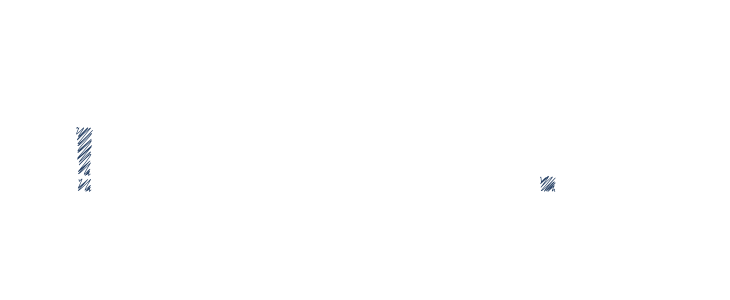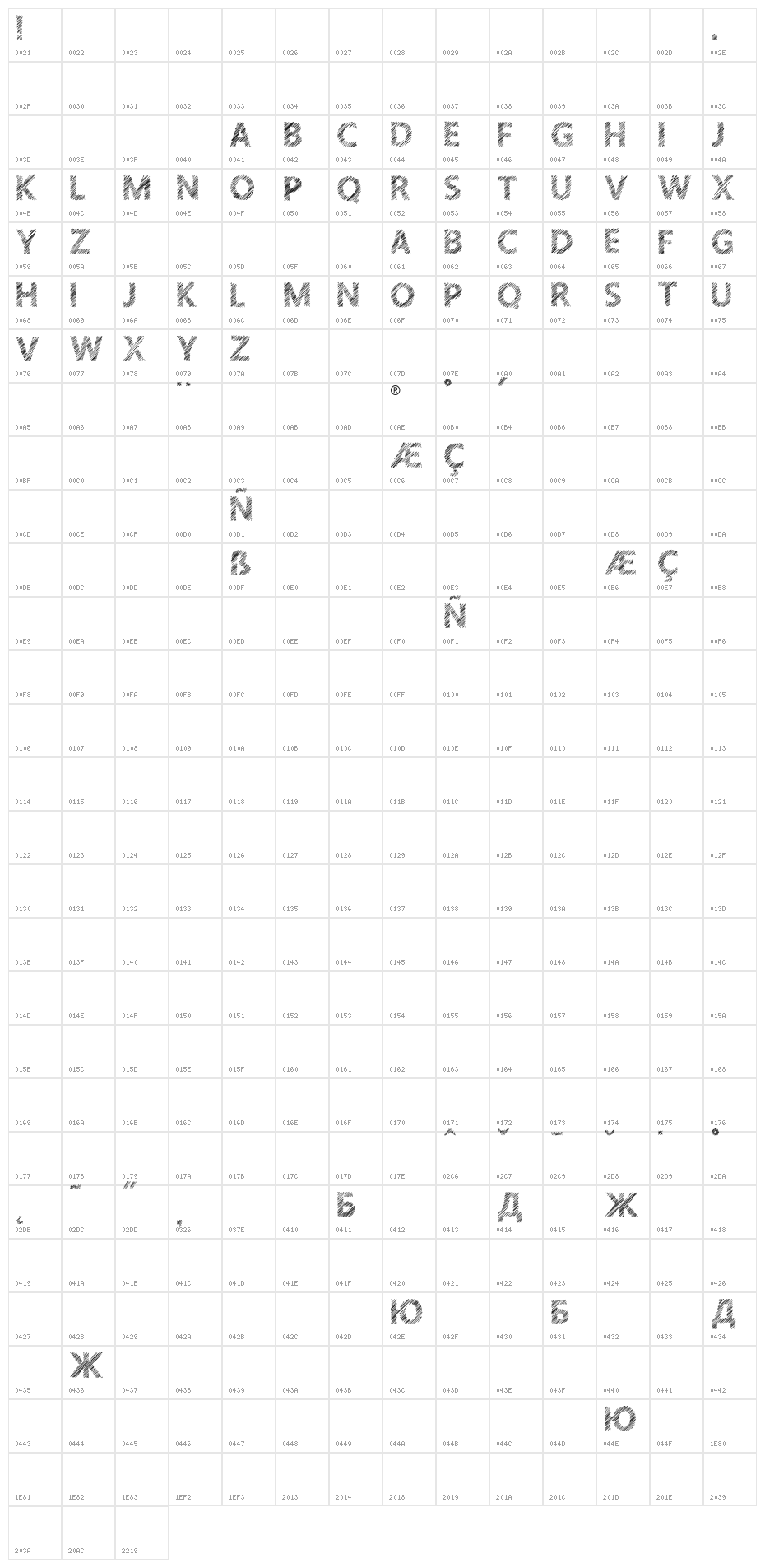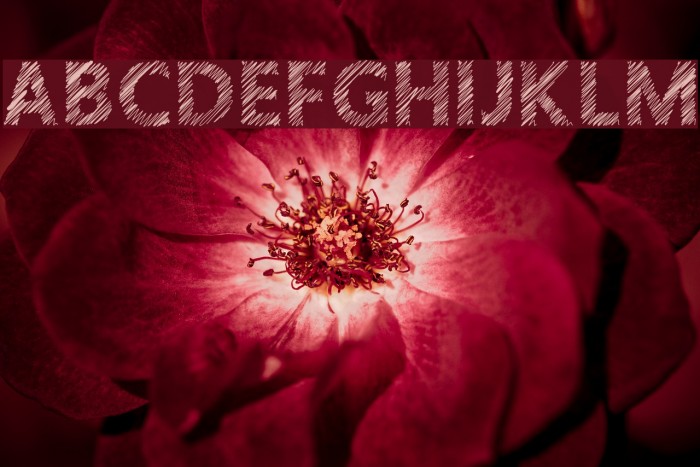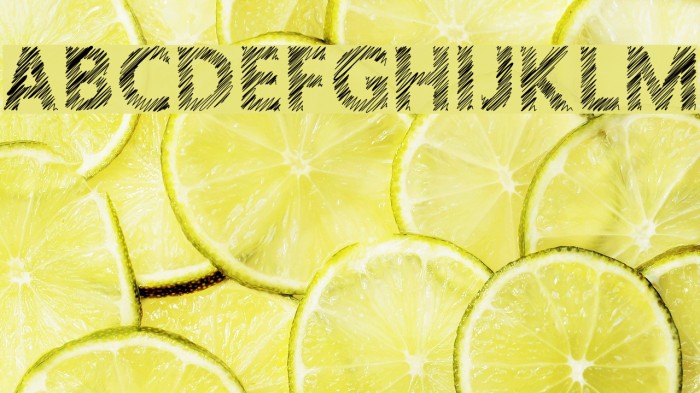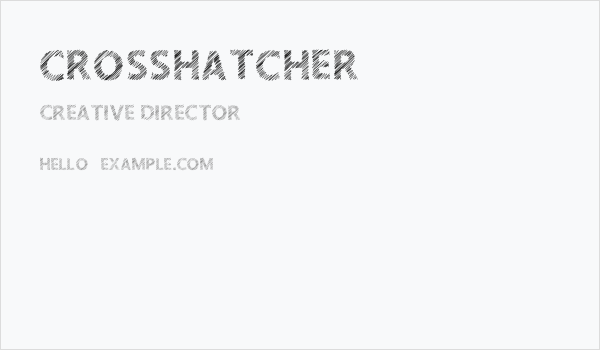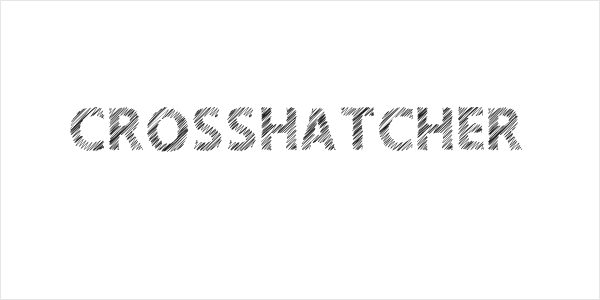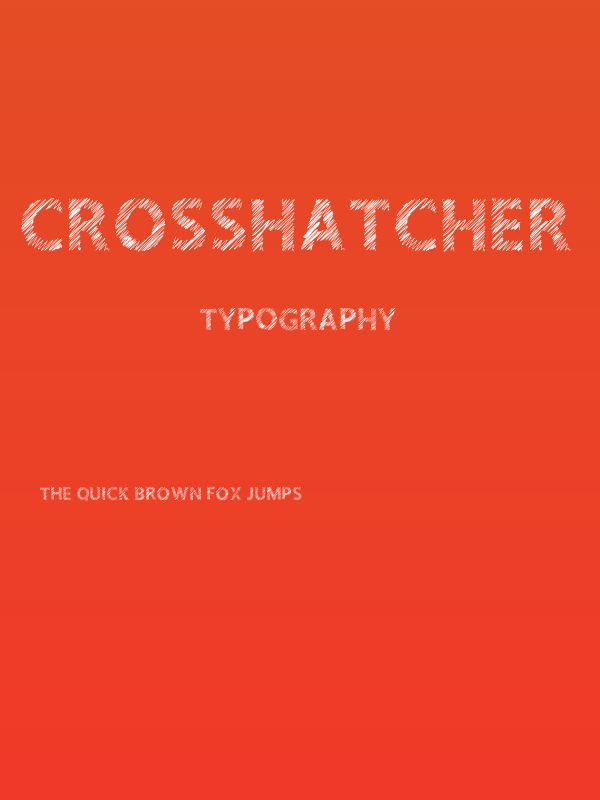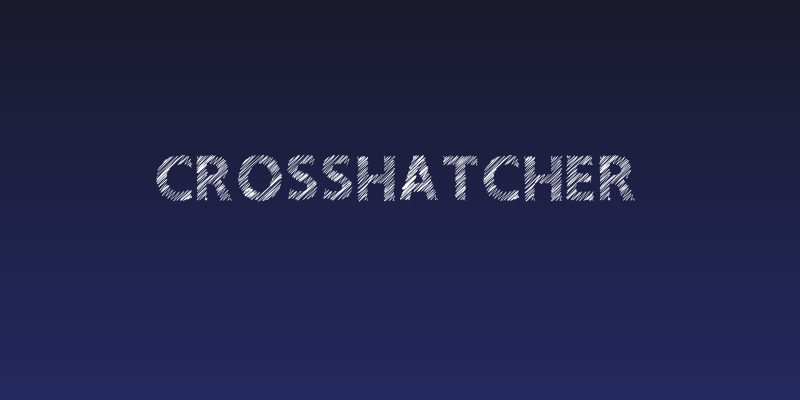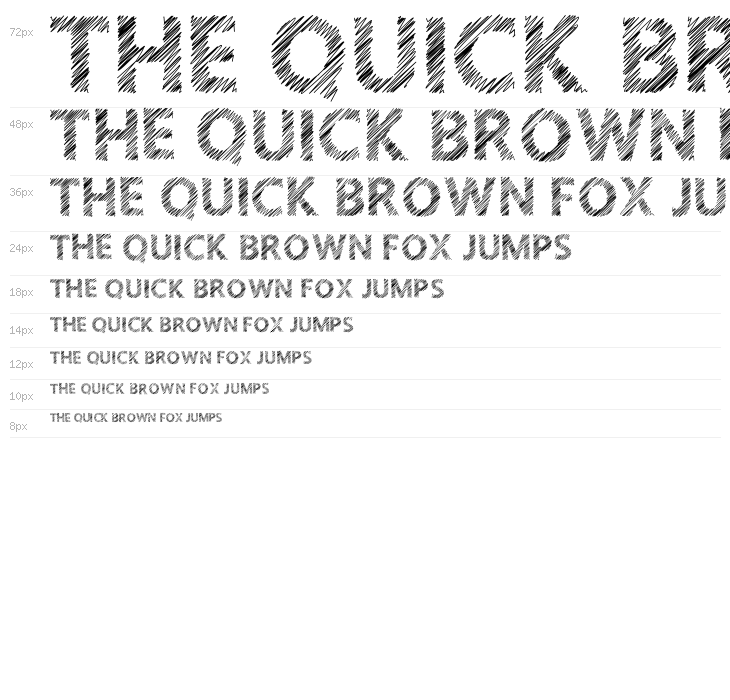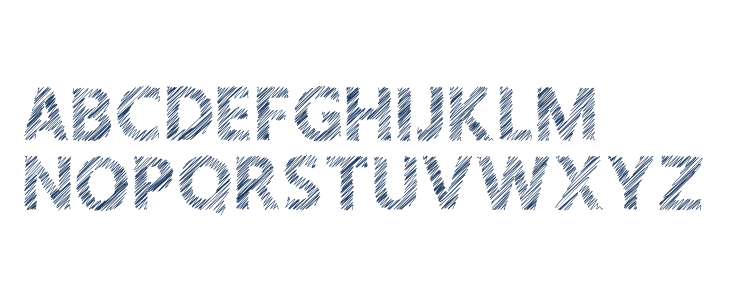
Crosshatcher Font
| Gesamtstil | Artistic, Textured |
| Anwendungsfall | Headlines, Logos, Creative projects |
| Vorgeschlagene Projekte | Ideal for creative branding, artistic posters, and eye-catching headlines. |